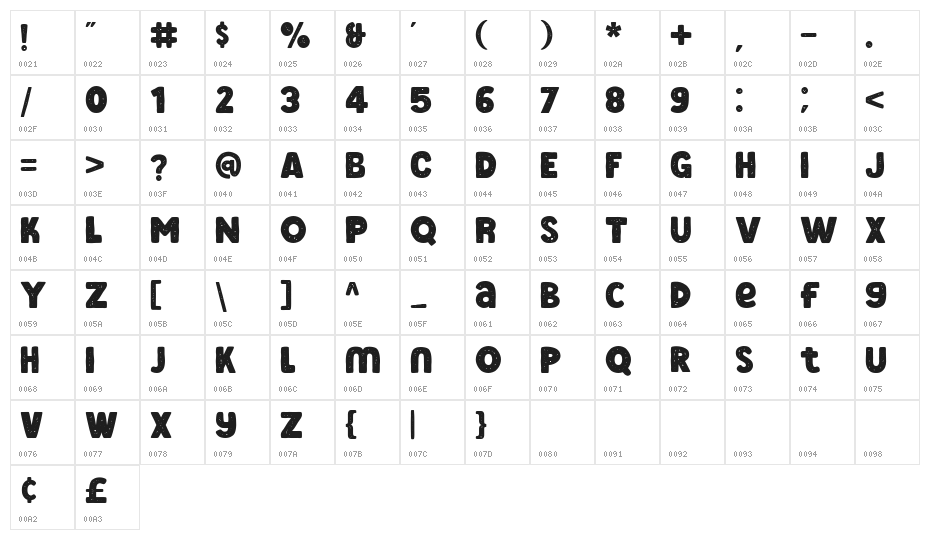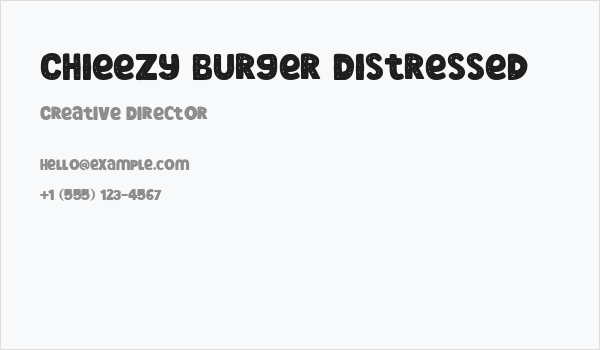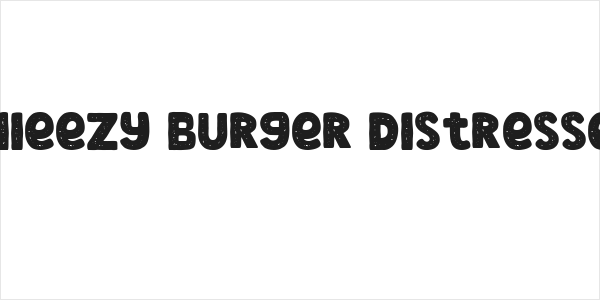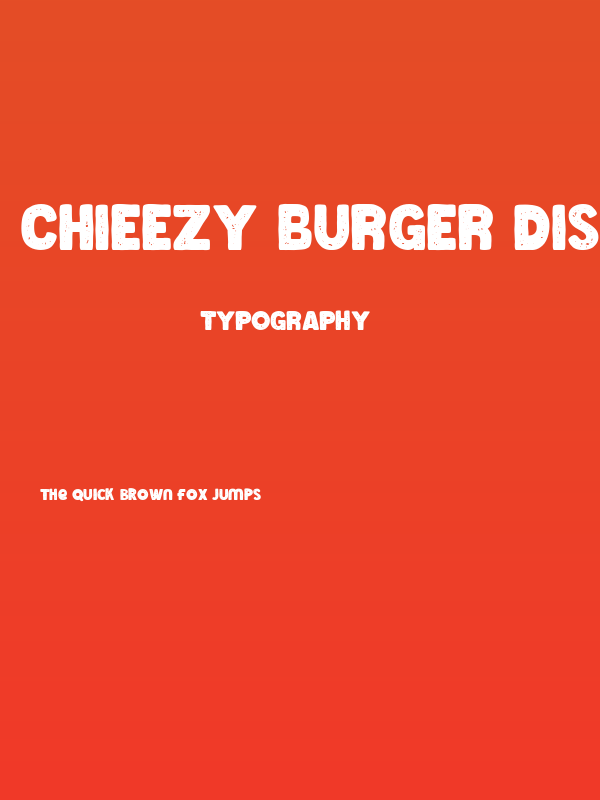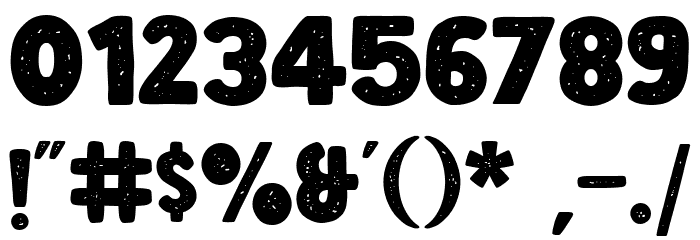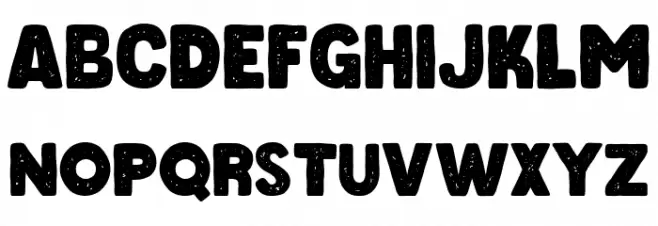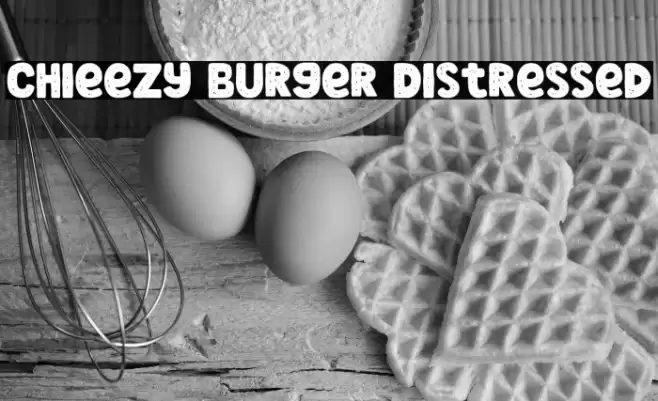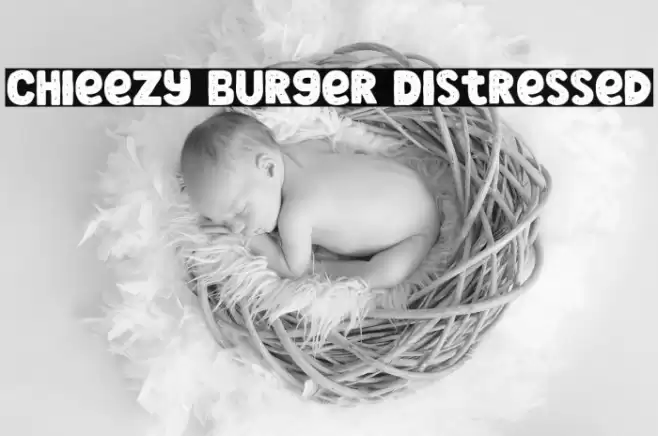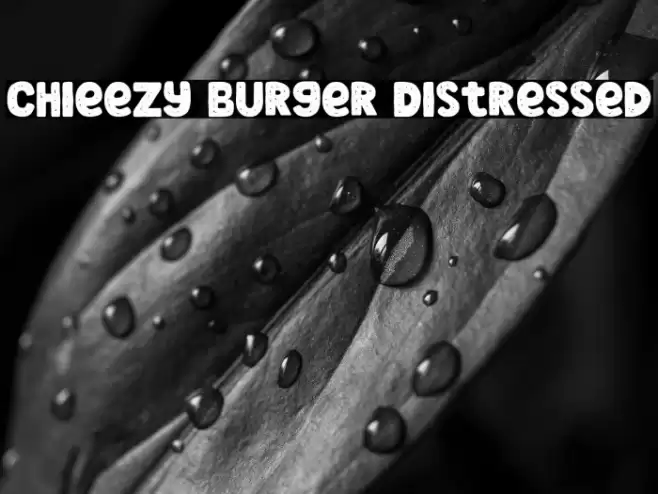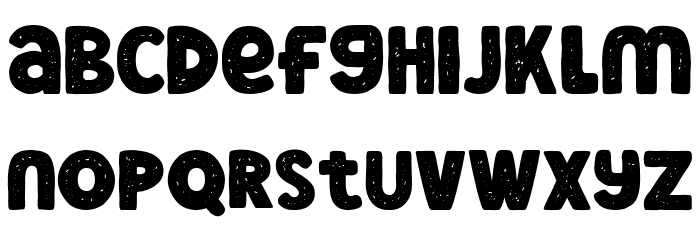
Chieezy Burger Distressed Font
Chieezy Burger Distressed Description
This font features a playful and bold style with a distressed texture, giving it a unique, worn-out appearance. The characters are rounded and thick, providing a friendly and approachable feel. The distressed effect adds a vintage or retro touch, making it suitable for designs that aim to evoke nostalgia or a handcrafted look. The font includes a full set of uppercase and lowercase letters, numbers, and a variety of special characters, ensuring versatility in its use. Its boldness and distinct texture make it stand out, ideal for eye-catching designs.
| Overall Style | Vintage |
| Proposed Projects | Ideal for branding, posters, packaging, and any project requiring a retro or handcrafted aesthetic. |